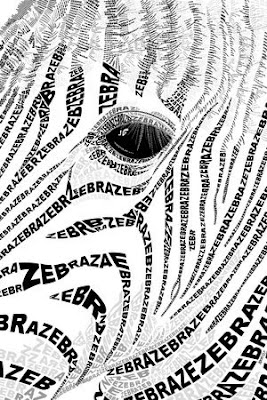
Here is another image that uses type to create a 3-dimensional looking image. I think it's amazing how the artist created so many different planes with type. It was posted by "fuzzyzebra" at deviantart.com.-diana